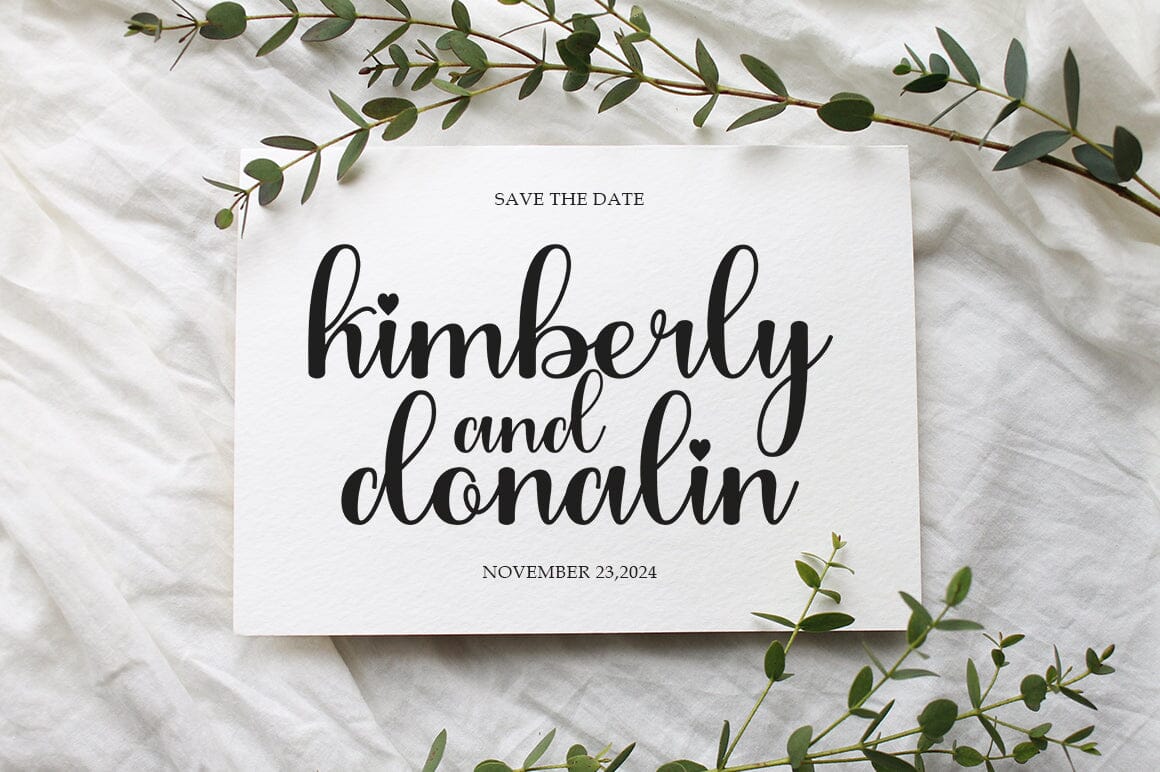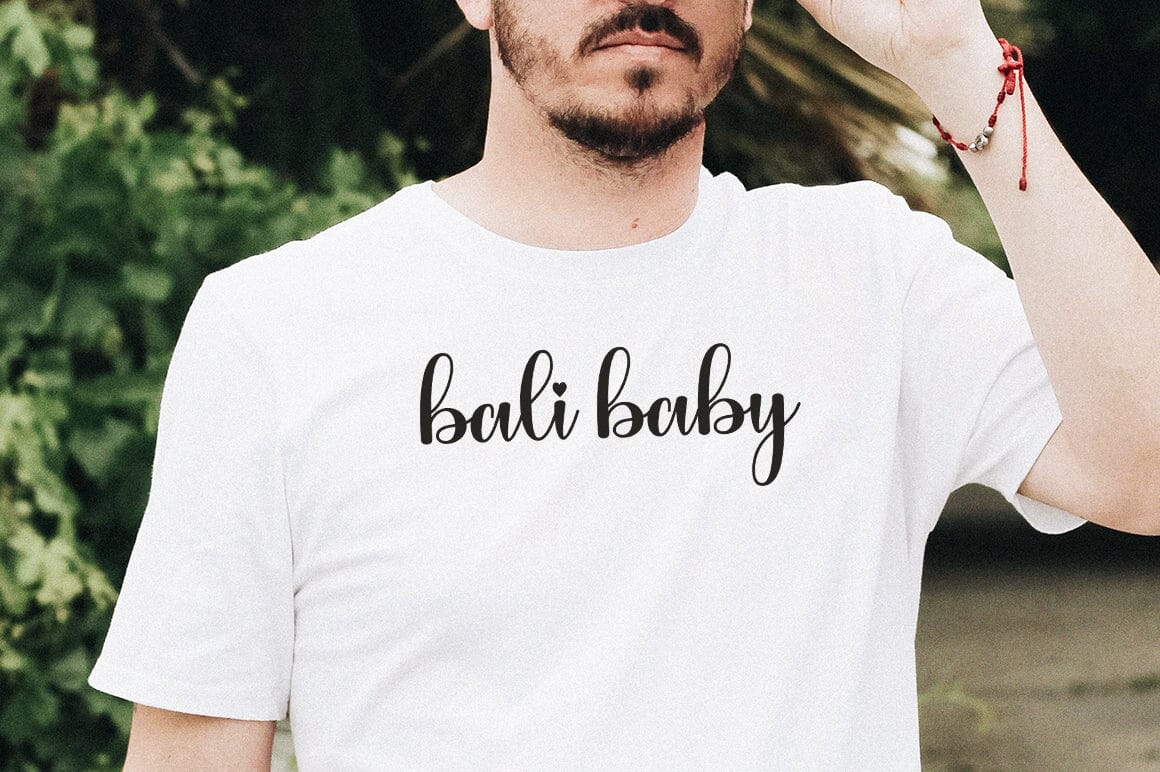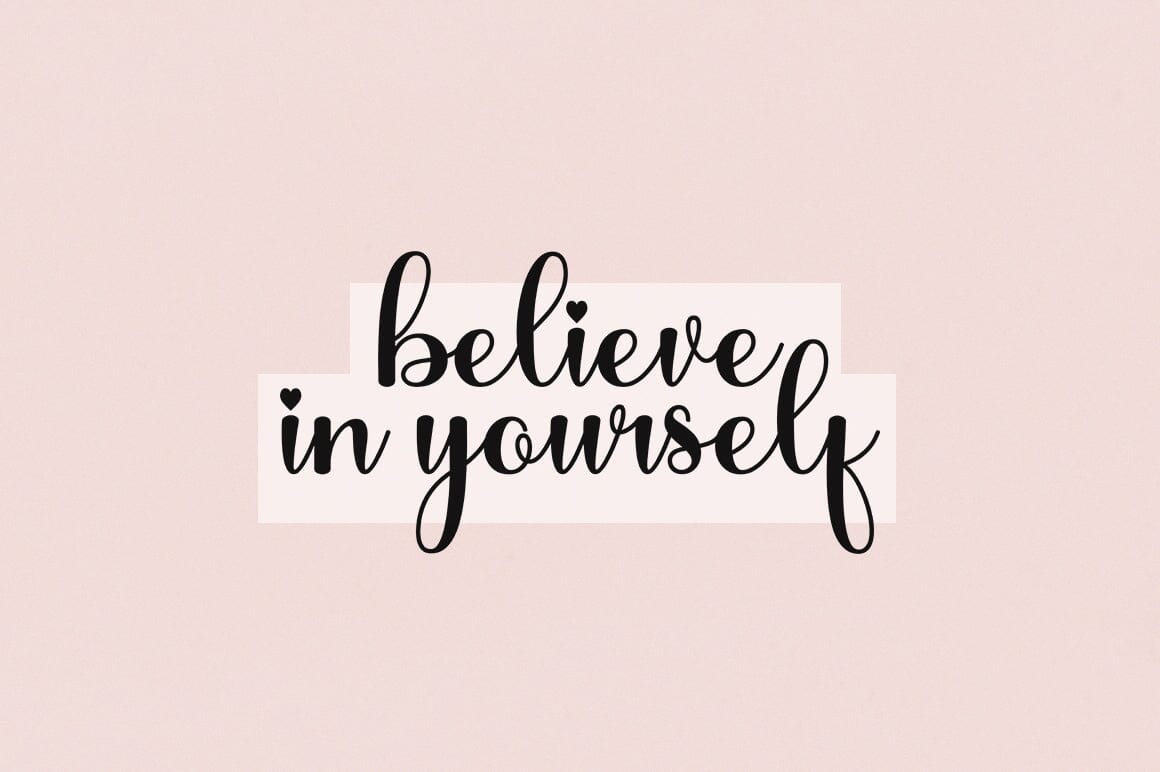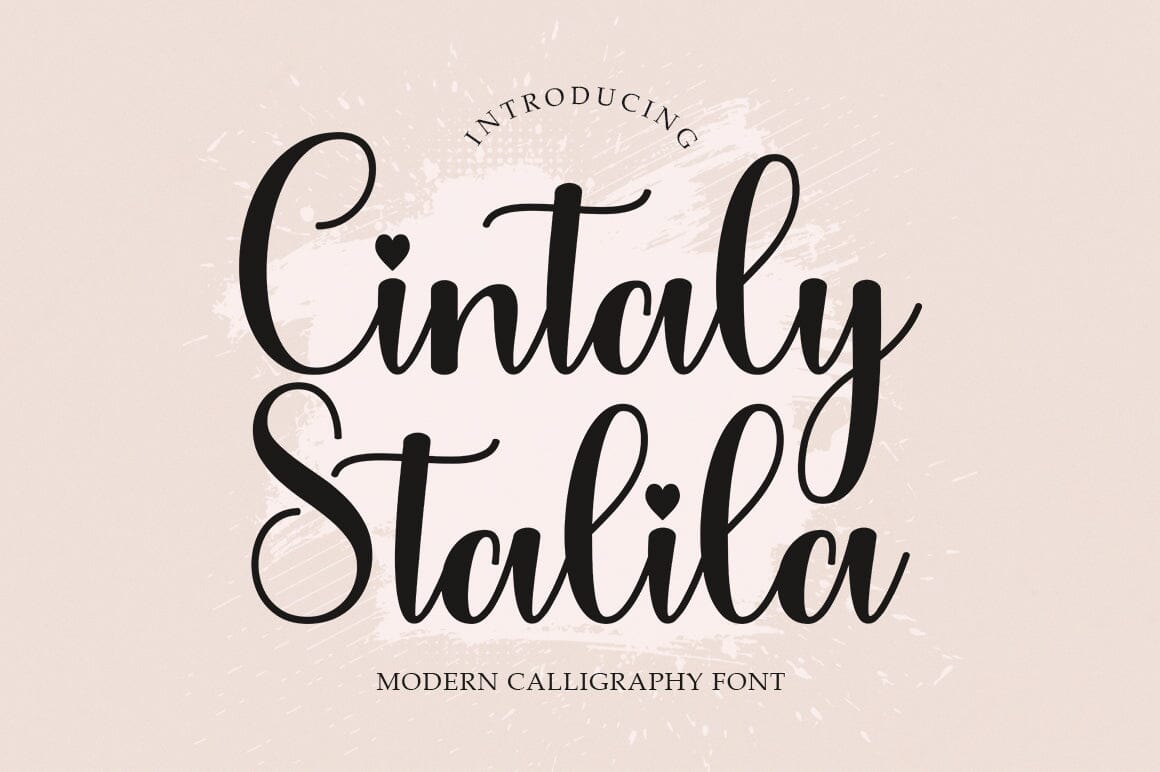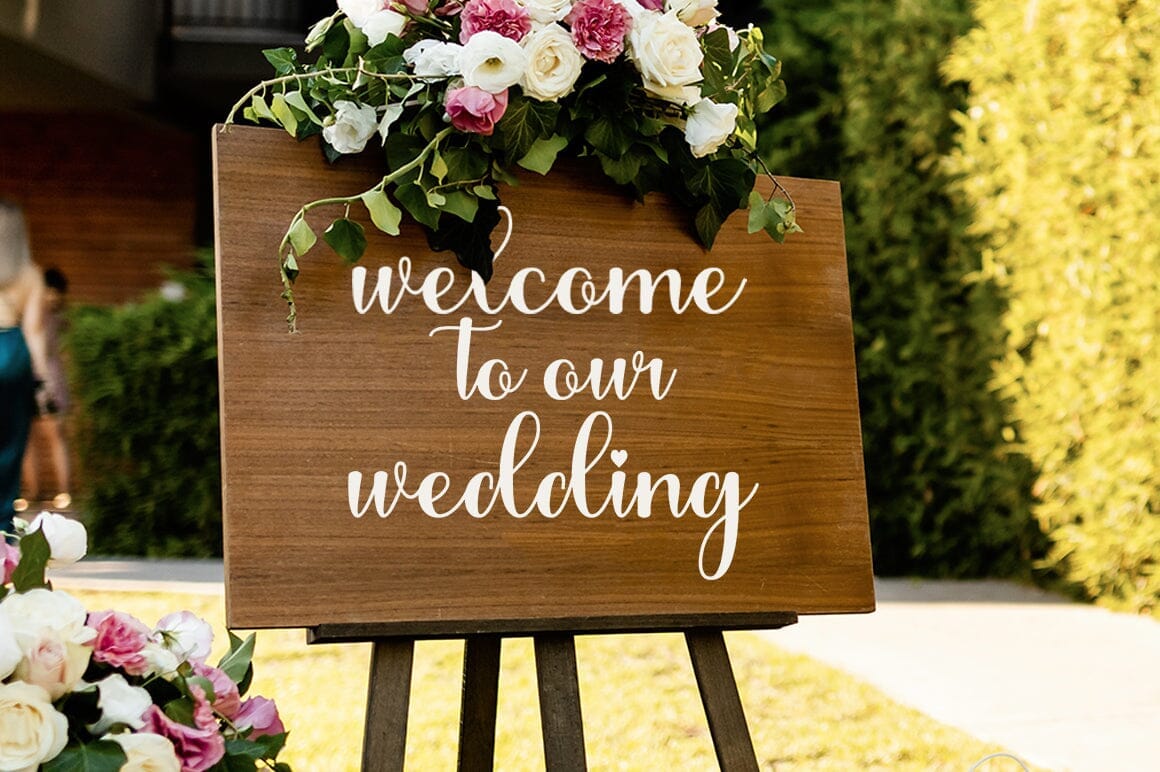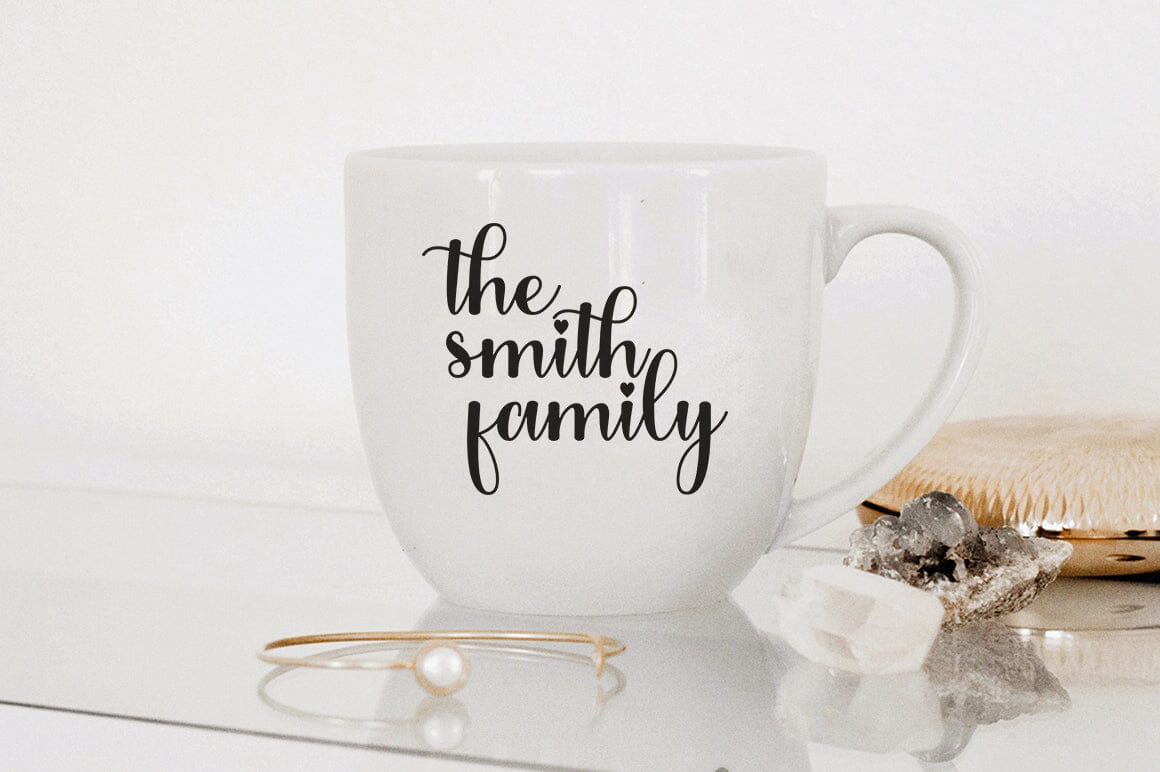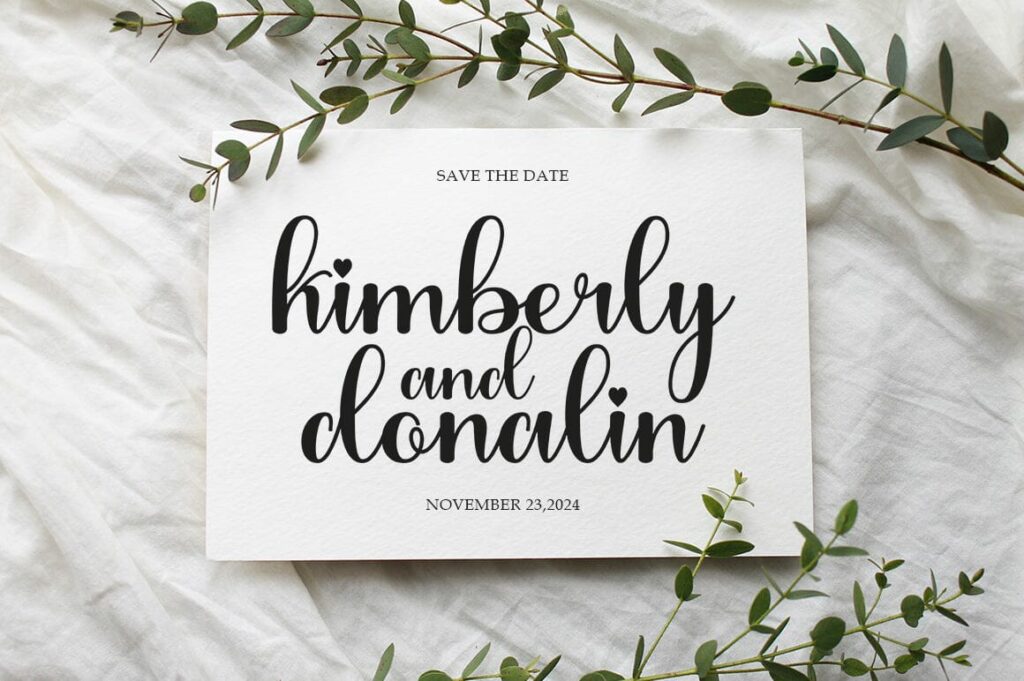
Cintaly Stalila
About Cintaly Stalila
Cintaly Stalila is a beautiful Calligraphy font with a touch of love. Cintaly Stalila is perfect for branding projects, home appliance design, product packaging, use in business cards, invitation cards, etc. Includes OTF/TTF Thanks for checking! I really hope you enjoy it.